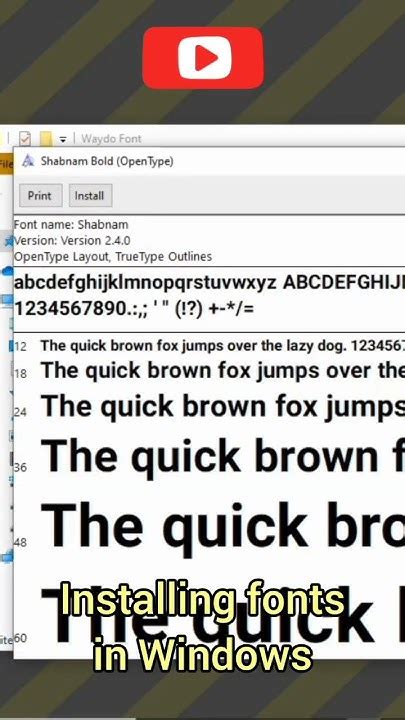
Unlock the Secrets to Installing Fonts on Your Windows Computer!
What is Font?
Fonts are a type of computer typeface used to display text. They are used to make a document, website, or other digital product look more attractive and readable. Fonts can be used for logos, titles, headlines, and body text. They can also be used to create unique designs, such as calligraphy, or to express a certain mood or feeling. Fonts are available in a variety of styles, such as serif, sans serif, script, and decorative. They can also be downloaded from the internet, purchased from a font foundry, or even created with a font-creating software.Why Install Fonts?
Installing fonts on your Windows computer is important for a few different reasons. For example, if you want to create a document or website with a unique font that you don’t have on your computer, you will need to install it. Installing fonts can also help with compatibility issues, as some programs may require a specific font to properly display text.How to Install Fonts on Windows?
Installing fonts on your Windows computer is fairly simple. First, you will need to locate and download the font you want to install. Once you have the font file downloaded, you can open the folder containing the font file and double-click it. The font will then be installed and will be available for use in any program on your computer. You can also install fonts using the Fonts Control Panel in Windows. To do this, go to the Start menu and type “Fonts”. Click on the “Fonts” option in the Control Panel and then drag and drop the font file into the window. The font will then be installed and available for use.Example Fonts
One example of a font you may want to install is the popular Open Sans font. This font is widely used on websites and in documents, making it a great choice for those who want to create a professional and modern look.Compatibility Issues
It is important to note that not all fonts are compatible with all versions of Windows. Therefore, it is important to check the compatibility of the font you are installing before downloading it. Additionally, some fonts may require additional software or plugins to be installed before they can be used.Additional Tips
When installing fonts on your Windows computer, make sure to check for viruses or malware. Some font files may contain malicious code, so it’s important to scan the file before installing it. Additionally, when downloading fonts from the internet, make sure to download them from a reputable source.Conclusion
Installing fonts on your Windows computer can be a great way to add some personality and flair to your documents and websites. It is important to make sure the font you are installing is compatible with your version of Windows and is free from viruses or malware. With these tips, you can easily unlock the secrets to installing fonts on your Windows computer.Point of View
Installing fonts on your Windows computer can be a great way to make your documents and websites stand out. It is also important to make sure the font you are installing is safe and compatible with your version of Windows. With these tips in mind, you can easily unlock the secrets to installing fonts on your Windows computer. Installing fonts on your Windows computer is an easy and fun way to add personality to your documents and websites. With these tips, you can unlock the secrets to installing fonts on your Windows computer and begin creating unique and eye-catching designs.Source: CHANNET YOUTUBE Furious